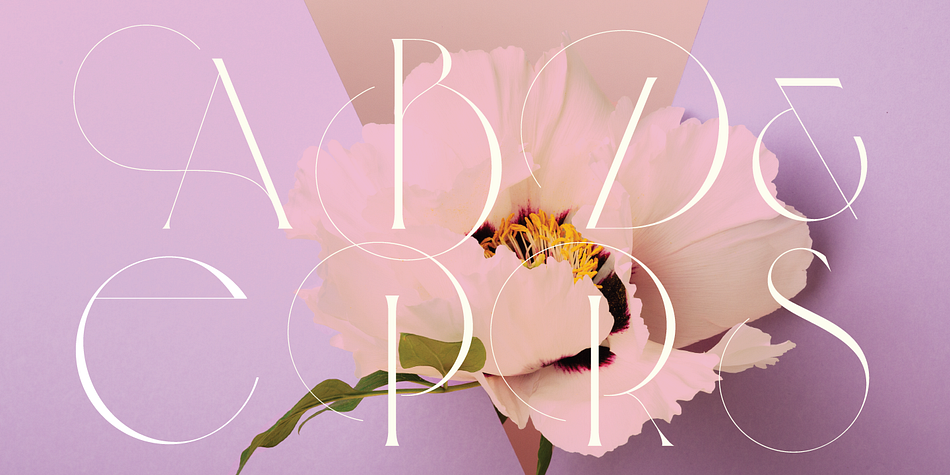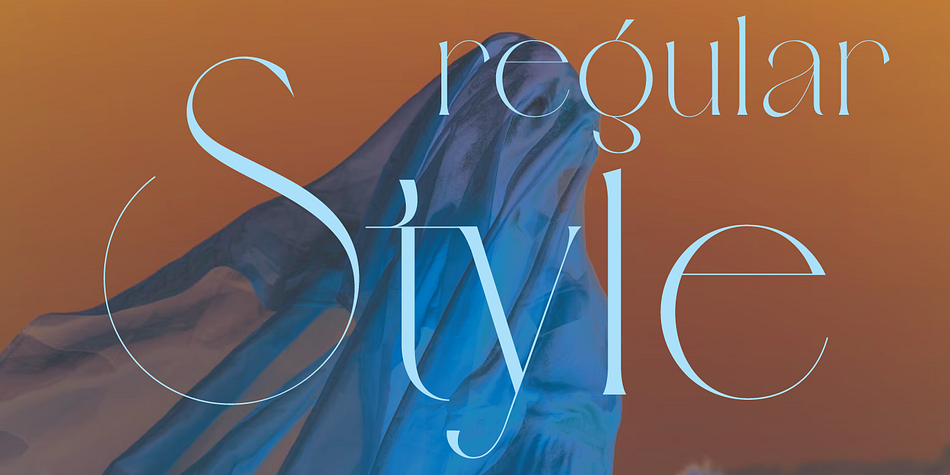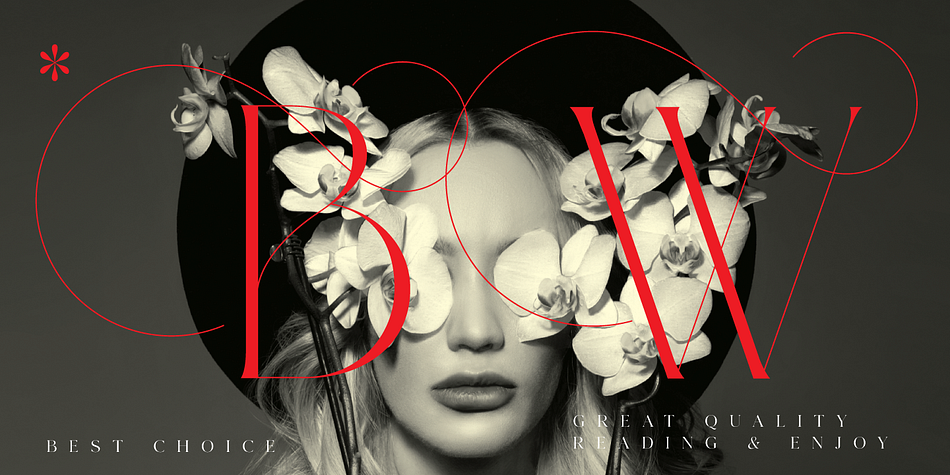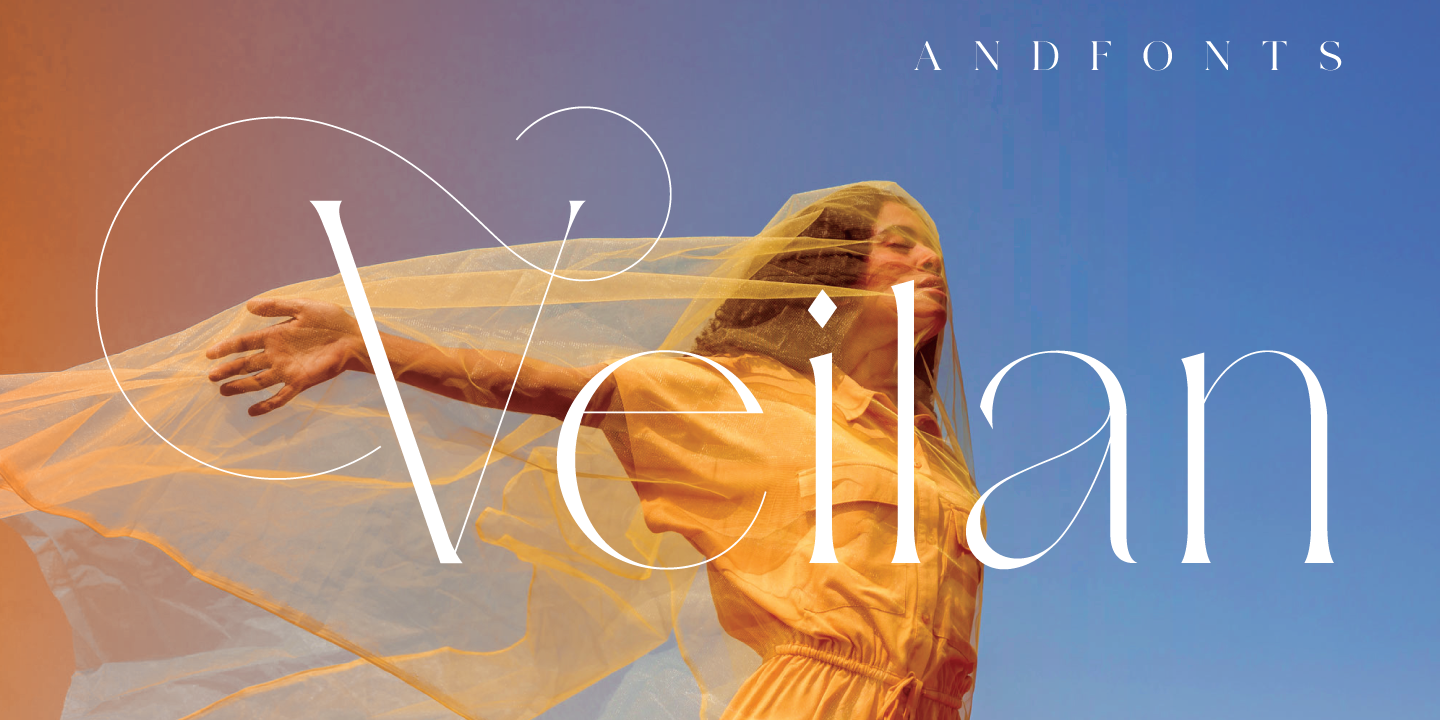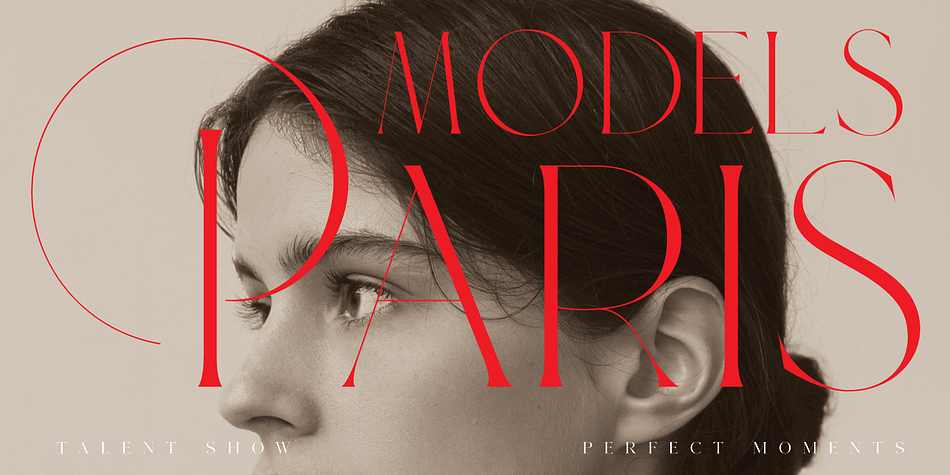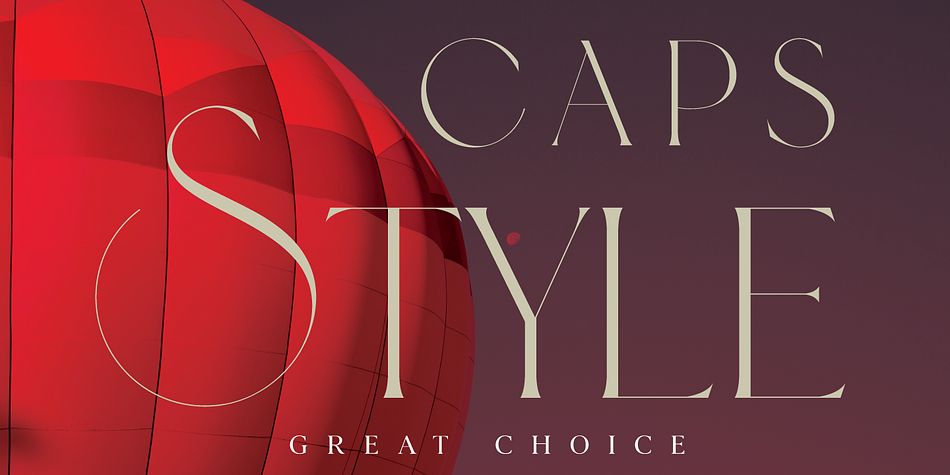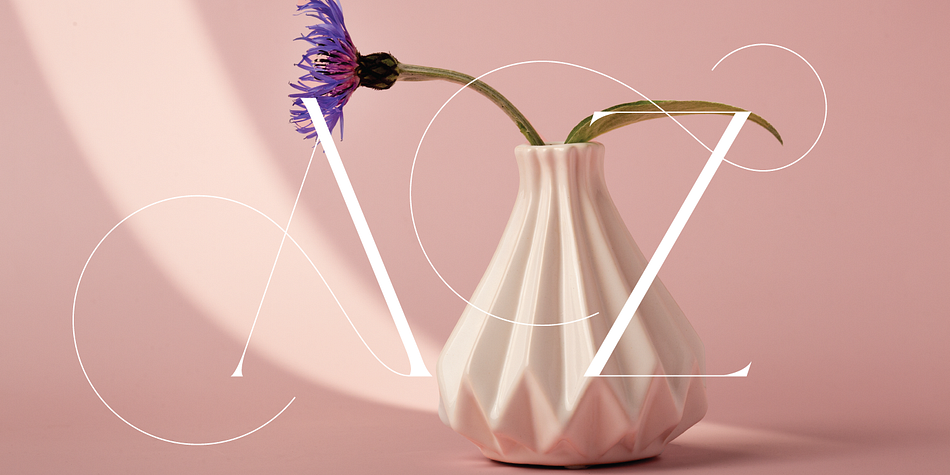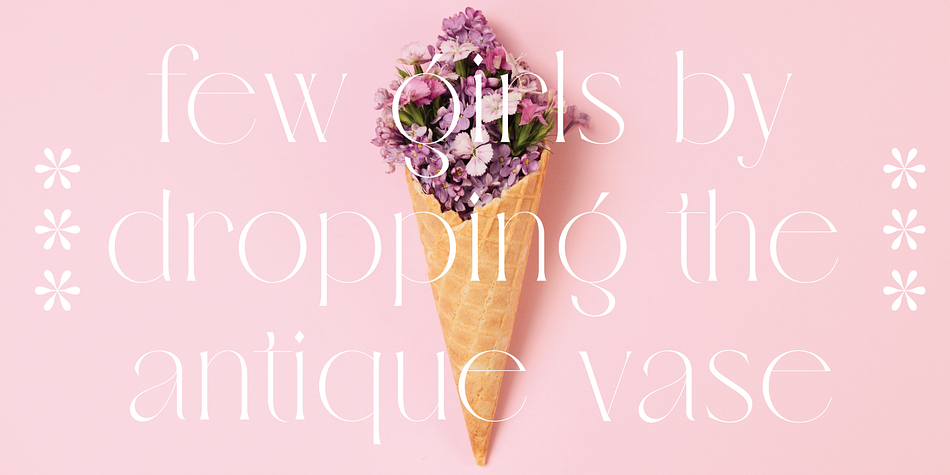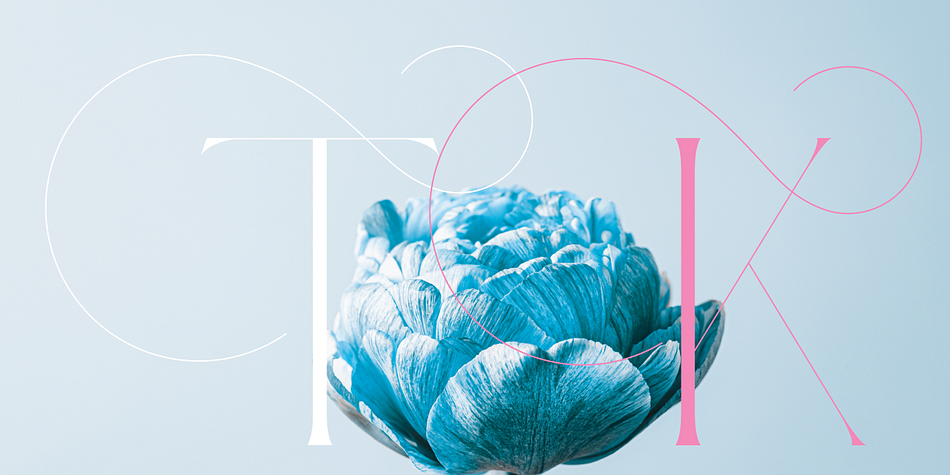
Veilan
Veilan is a serif font family. This typeface has four styles and was published by Andfonts.
Introducing Veilan, a thin, serif font that exudes elegance, luxury, sophistication, and richness. With its sleek, stylish lines and intricate alternates, Veilan is a font that is sure to impress.
Veilan’s character set includes upper and lowercase letters, numbers, and punctuation, making it a versatile font that can be used for a variety of projects. The font’s thin and delicate strokes give it an air of refinement, perfect for high-end designs such as logos, packaging, invitations, and branding.